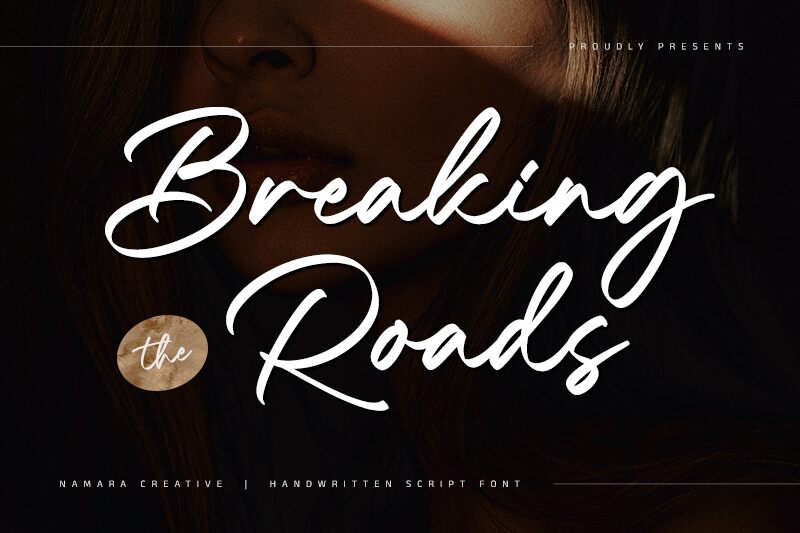
Breaking Road Regular
Breaking Road font by Namara Creative is a free modern handwritten font. It stands out with inky, pressure-shifted strokes that swell and taper, creating a lively rhythm and an easy, unforced flow. Letters link with a gentle bounce and a touch of grain, so the script feels warmly human—like a favorite gel pen on smooth paper.
Using Breaking Road, headlines instantly gain charm without slipping into messiness. This free font shines on wedding invitations, save‑the‑dates, greeting cards, boutique logos, product packaging, and quote posters. Keep it large to let the textured curves breathe, and pair it with a clean, unobtrusive sans for body copy to let the script lead.